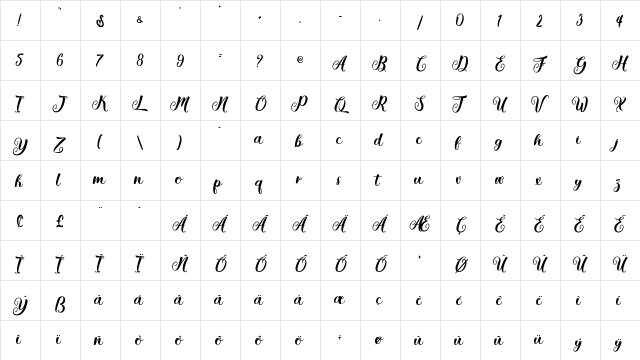
Getsu Magic - Personal Use Regular
| Foundry | Typhoon Type - Suthi Srisopha |
| Designer | Typhoon Type - Suthi Srisopha |
Design Context for Getsu Magic - Personal Use Typeface
Getsu Magic - Personal Use is a composed and adaptable typeface that performs quietly and consistently across a wide range of design contexts.